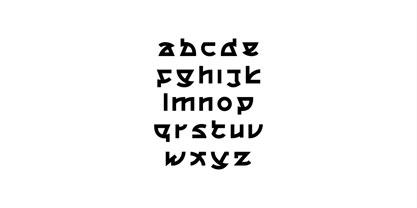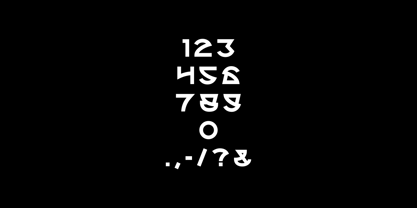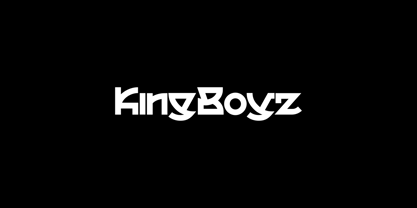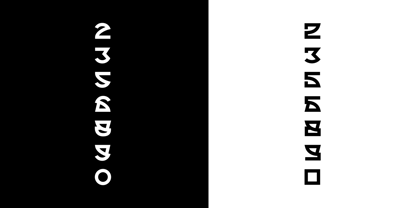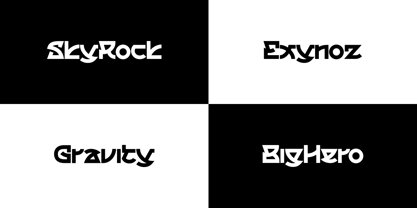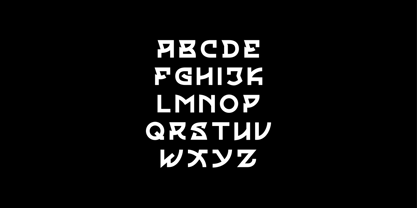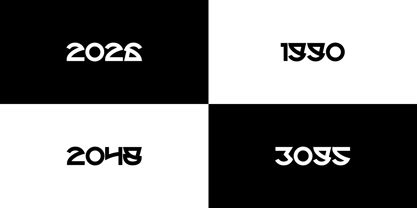
King Boyz
by Rivian
KingBoyz is a striking, decorative display font crafted to capture attention. Featuring robust shapes and a dynamic character, it is ideal for creating eye-catching titles in comics, movies, games, logos, and bold apparel. Designed to stand out, this single-style typeface provides maximum impact without requiring a complete family. When you need powerful headlines that instantly grab attention, KingBoyz delivers the energy and flair you seek.